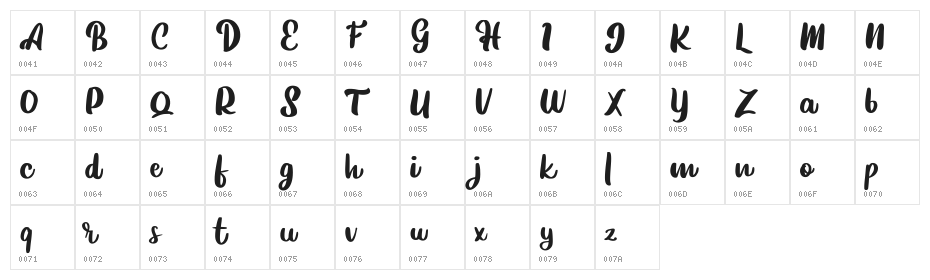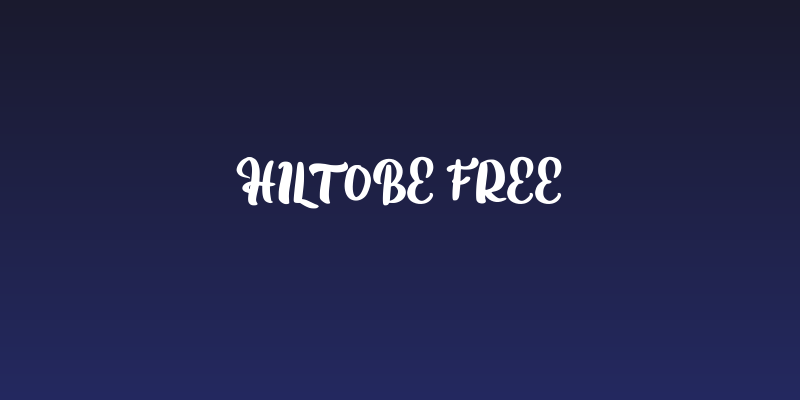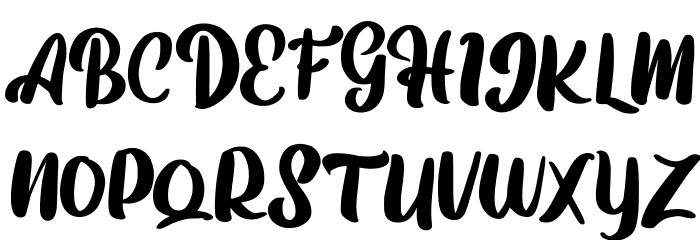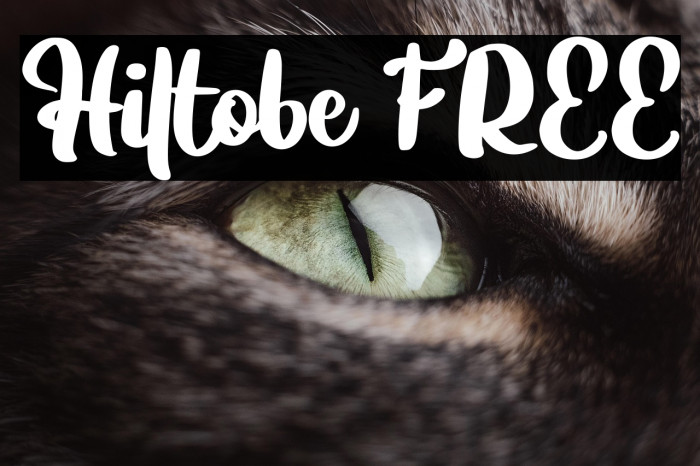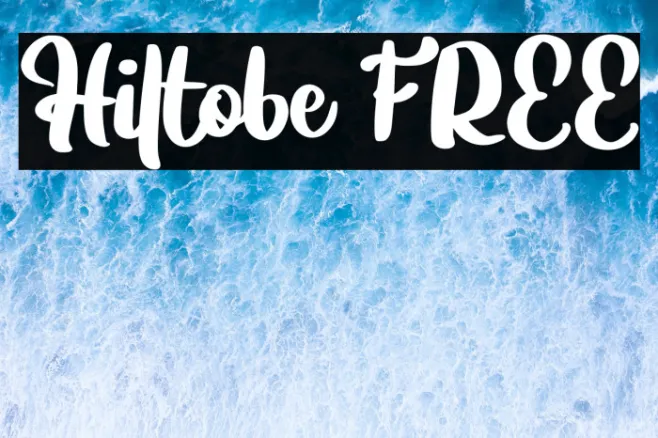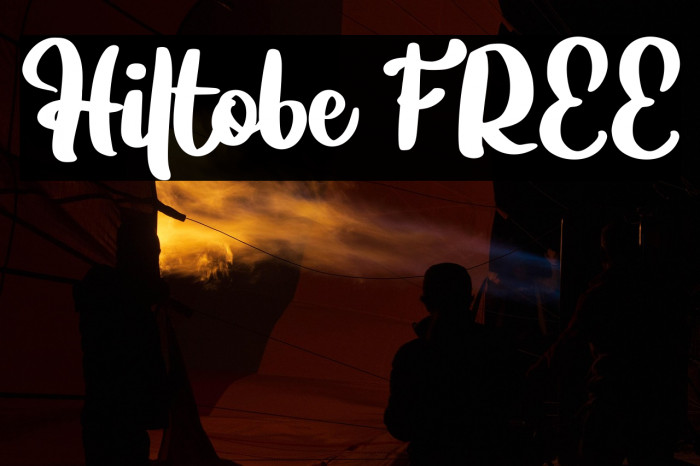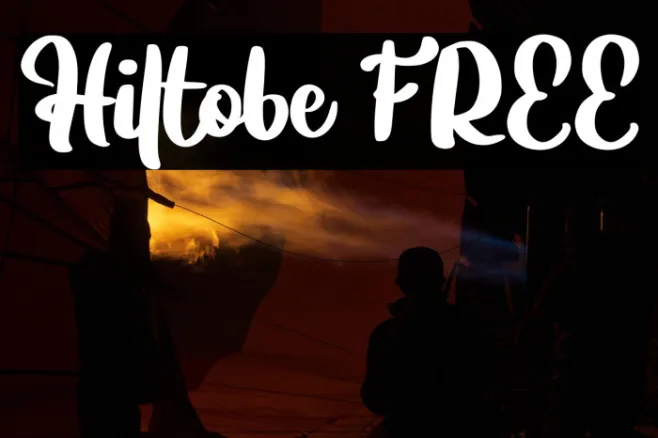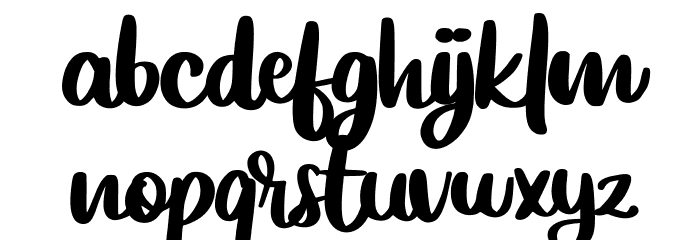
Hiltobe FREE Font
Hiltobe FREE Description
This font features a bold, flowing script style with a modern and playful aesthetic. The characters are connected, giving it a handwritten feel, yet they maintain a consistent thickness throughout, which adds to its legibility. The uppercase letters are slightly larger and more pronounced, while the lowercase letters are more rounded and compact. This font exudes a sense of creativity and energy, making it suitable for projects that require a personal touch. The overall design is cohesive, with each letter seamlessly transitioning into the next, enhancing its visual appeal.
| Proposed Projects | Ideal for greeting cards, invitations, branding, and social media graphics. |